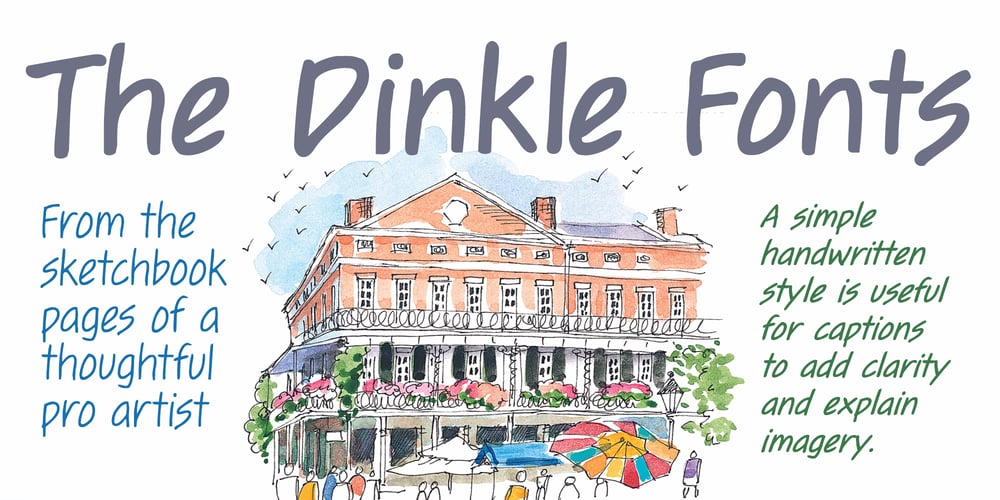
Dinkle Font Family was designed by Chank Diesel and published by Chank. Dinkle contains 4 styles and family package options. The Dinkle fonts are the creation of a sketchbook artist who spent years refining her craft, Diana Hollingsworth Gessler. She created the Dinkle handwriting fonts for use in her book “Very New Orleans,” and now you can use it in four convenient styles: Regular, Bold, Italic and Bold Italic. Each font in this family was drawn individually, capturing nuanced differences of natural penmanship when the weights are paired together. A hand-lettered journal style, the highly legible Dinkle fonts offer tidy text and clear captions. Use it for signage, quotations, or anywhere you need a personal touch in your designs.